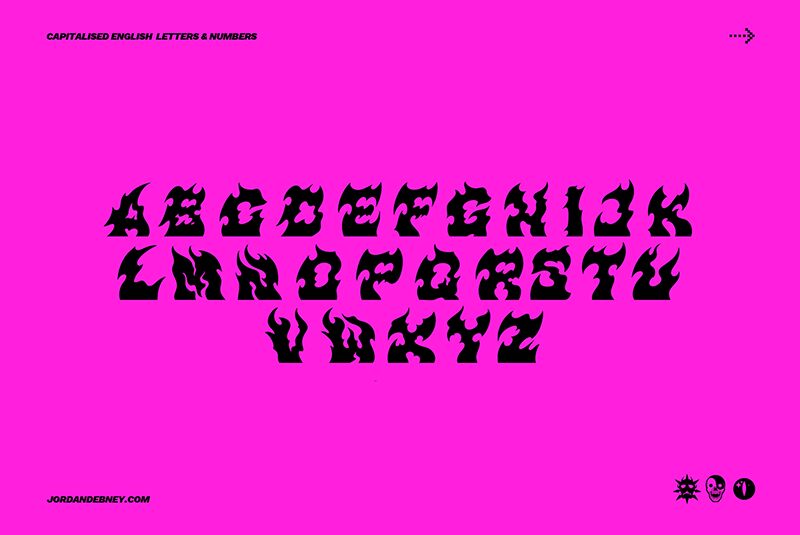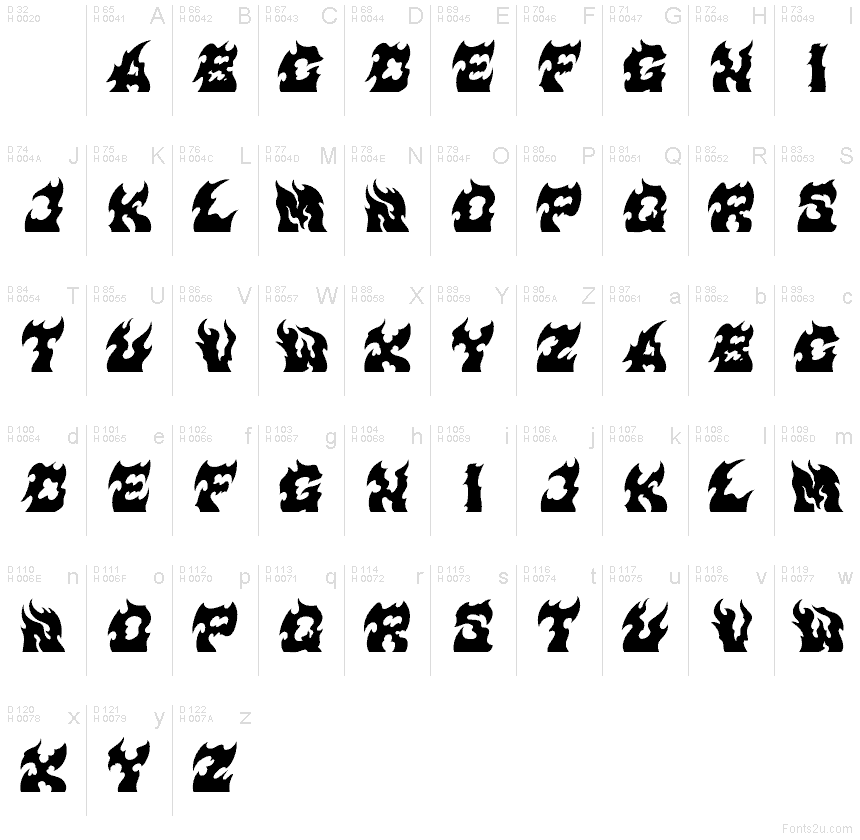
JD-BRIMSTONE-BASIC
JD Brimstone Basic font is a decorative display font created by Jordan Debney. It carries bold characteristics in its overall appearance along with an unusual aggressive design that makes it unique and exclusively suitable for themed projects inspired by flames.
Though not many use cases might look appropriate, here are some: rock band posters, pop music album covers, comic books, book titles and covers, movie posters (horror or fantasy), t-shirts (merchandise), advertisement posters, coloring pages for kids and adults.
This full Brimstone typeface includes a complete glyph set, numbers, and special characters.